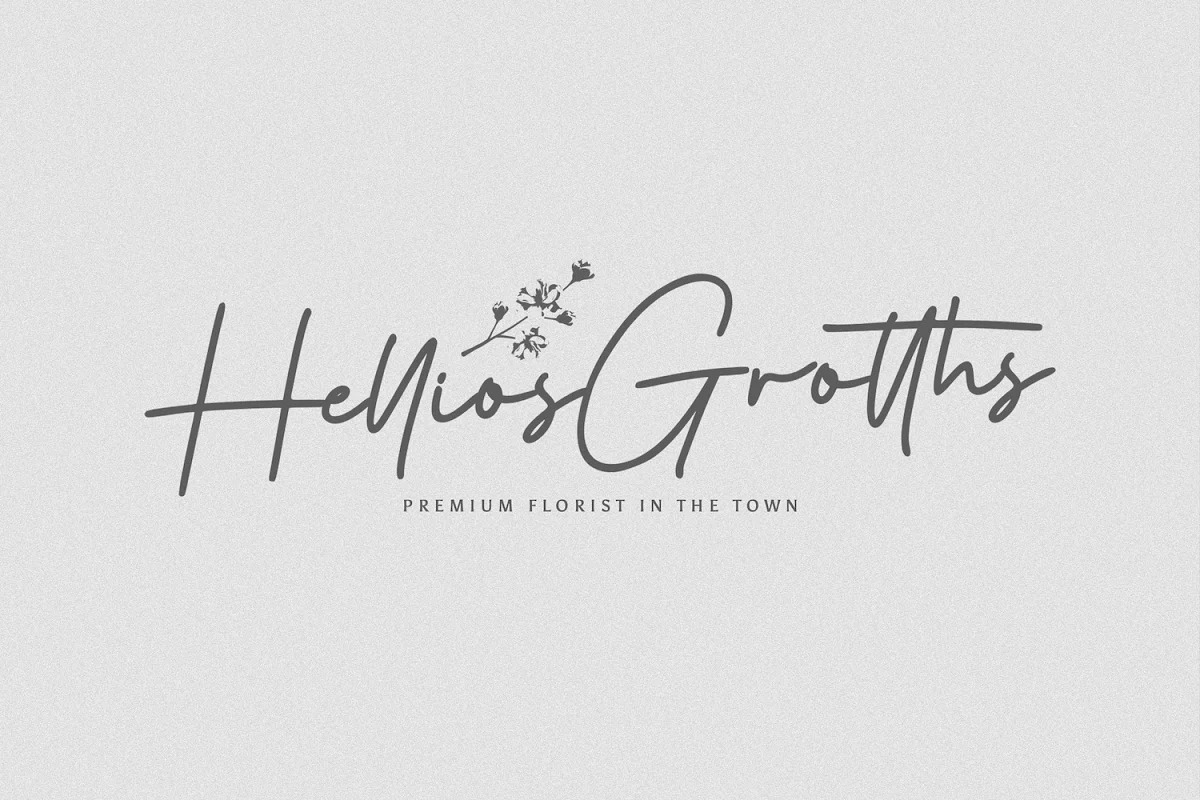
Tanya Hati Handwritten Font
It’s a font work that is purely handwritten, has its own characteristics with the style of monoline. This font so beauty and classy, Tanya Hati is great for wedding invitation card designs, logotypes, business card designs, advertisements, product designs, stationery, product packaging, quotes and so on.